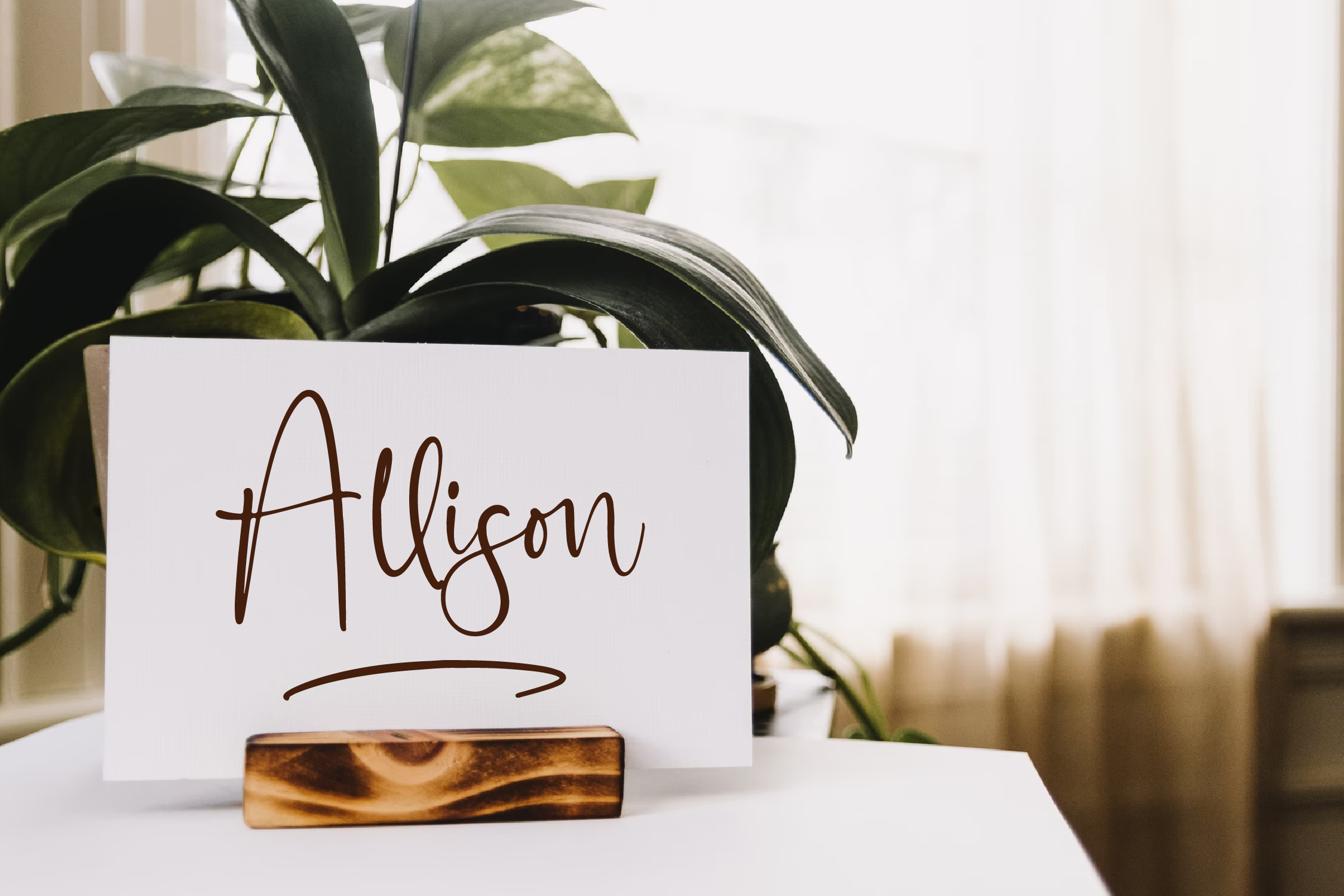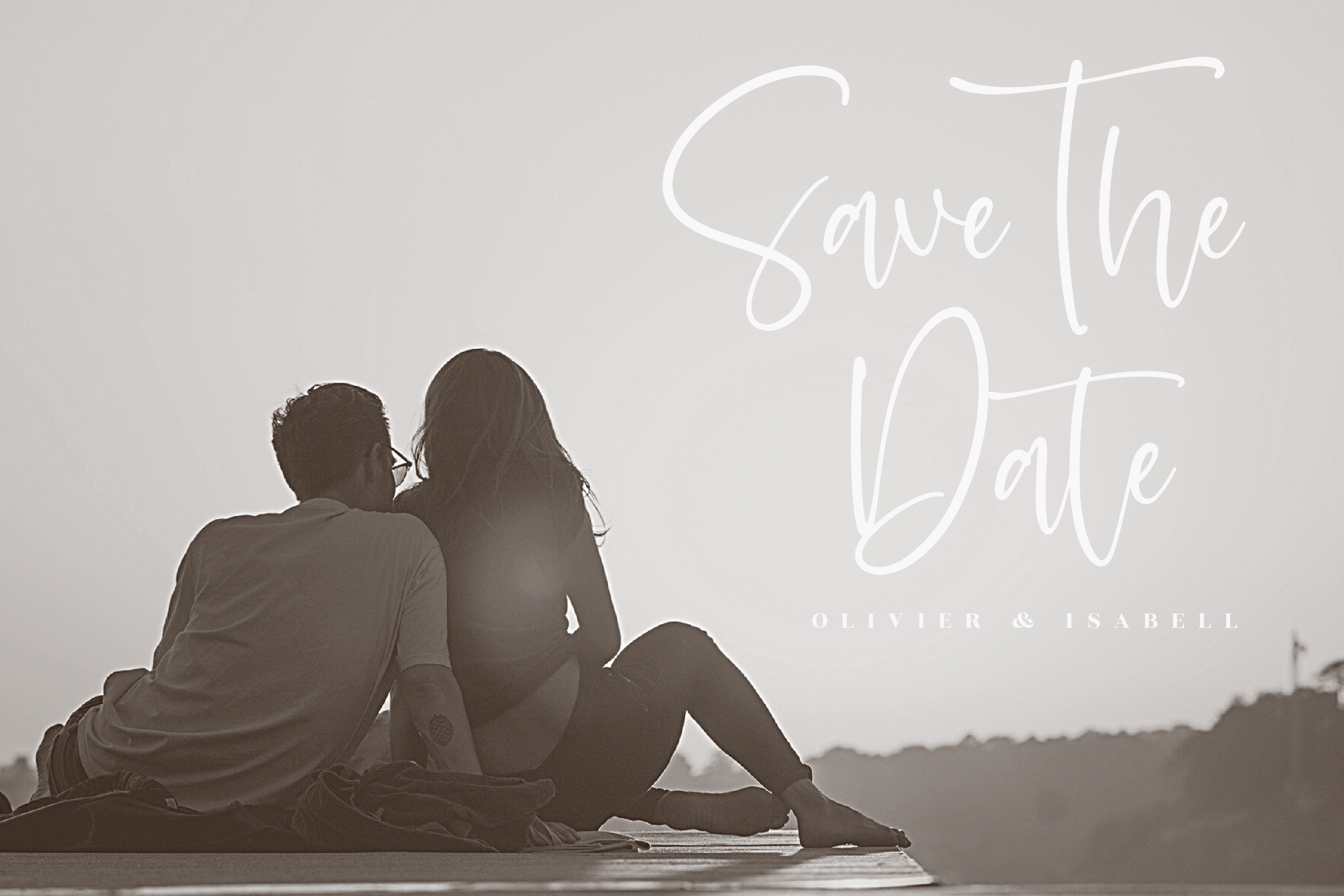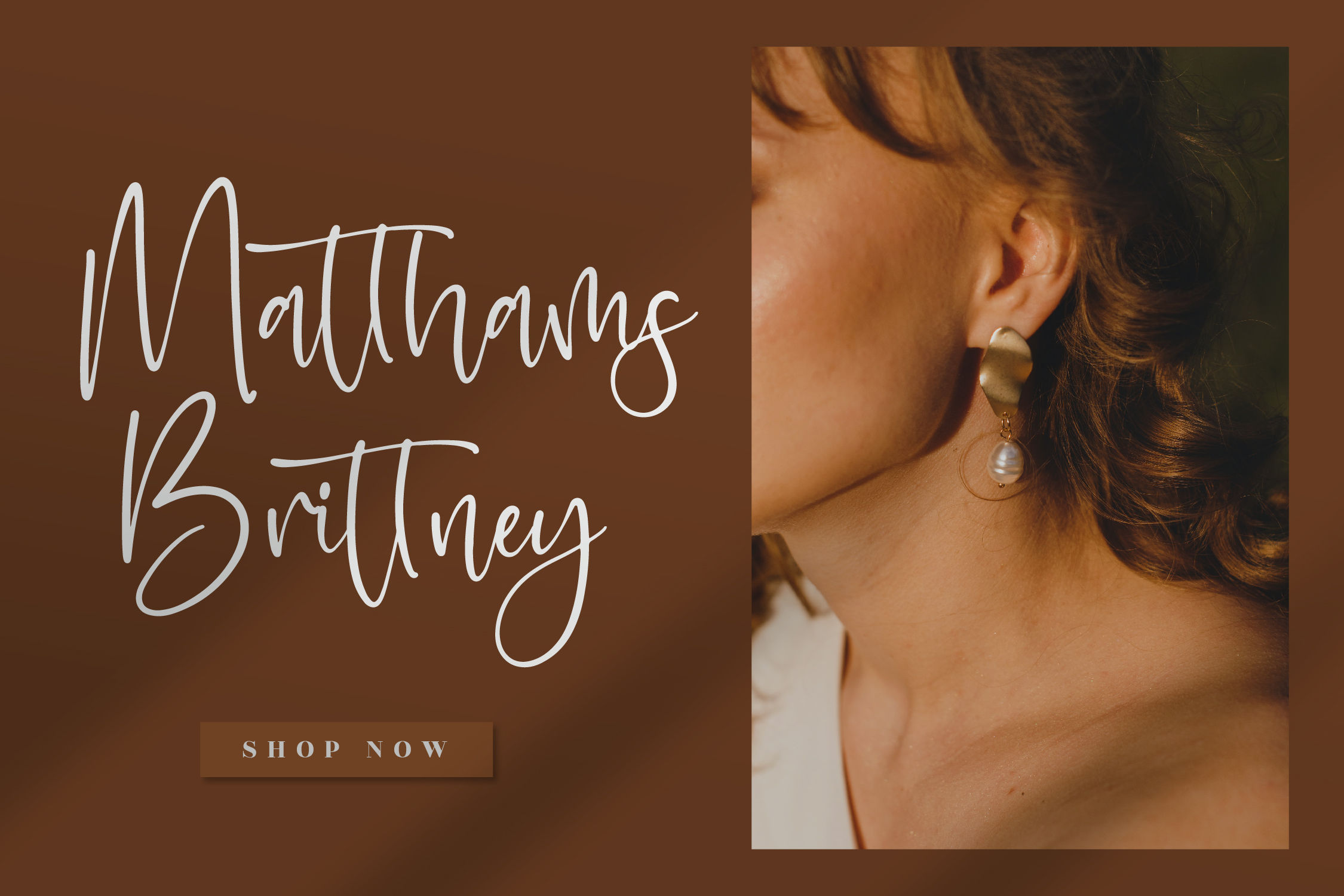
Santilaria – Modern Handwritten Font
Santilaria – Modern Handwritten Font, from Glorytype Studio, is a beautiful script font, suitable for any projects such as: logos, branding projects, homeware designs, product packaging, mugs, quotes, posters, shopping bags, t-shirts, book covers, name card, invitation cards, greeting cards, label, photography, watermark, special events, and all your other lovely projects that need a beautiful script taste.